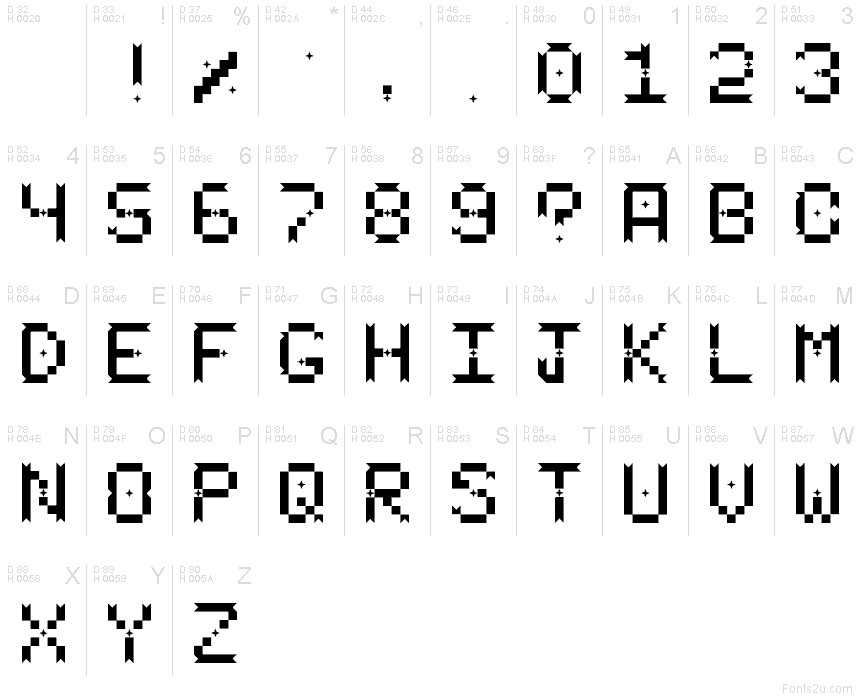
Andufont font by Andrea Miranda is a free Christmas holiday decorative display typeface that turns every word into a little piece of festive art. Bold, blocky letterforms stack up like toy bricks, while the tiny star cutouts feel like twinkling tree lights punched straight through the ink. The tight, upright rhythm keeps it legible even at smaller headline sizes, but it really sings when you let it go big and loud.
Using Andufont, you can give Christmas cards, gift tags, party invitations, posters, social media graphics, and advent calendars a playful, pixel-ornament vibe. This free font works beautifully for short, punchy phrases and titles; pair it with a simple sans serif for body text to keep everything readable and balanced.